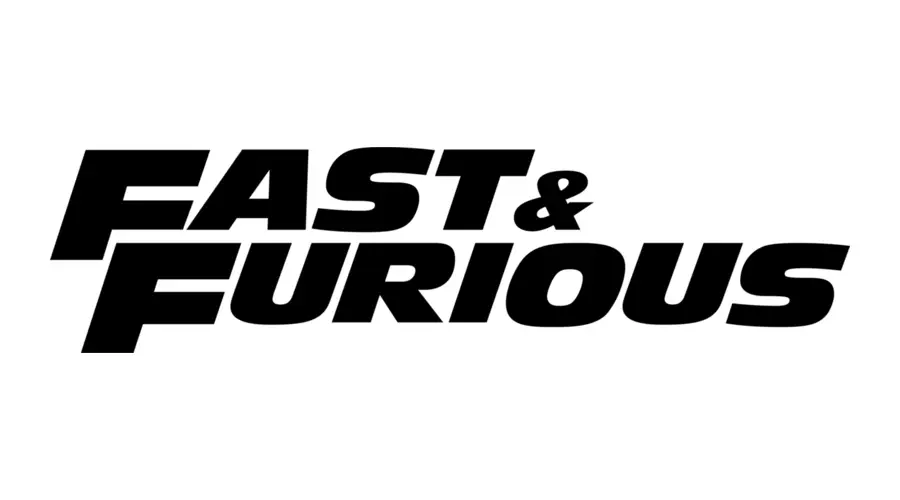
Short answer: for the first film’s slanted 2001 wordmark shown in the preview, Antique Olive Std Nord Italic is a close visual match, not a confirmed original logo font. The franchise uses different title treatments across films, so one match should not be generalized to every sequel.
Which Fast & Furious logo?
This conclusion is scoped to the compact, forward-slanted FAST & FURIOUS artwork displayed above. Universal Pictures’ official history dates the saga’s premiere to 2001, but it does not publish a typeface credit for that wordmark. Later films use shortened names, numerals, outlines, and custom treatments that need separate comparisons.
Letterform comparison
- Antique Olive Std Nord Italic: the broad proportions, heavy weight, blunt counters, and forward lean are close to the preview, especially in F, R, and S. The ampersand and spacing still differ.
- Incised 901 Nord Italic: shares a condensed italic direction but has a different construction and should be treated only as a general alternative.
- Changa One Italic: gives short action titles a chunky, energetic silhouette. It is an open-license alternative, not a replica of the film artwork.